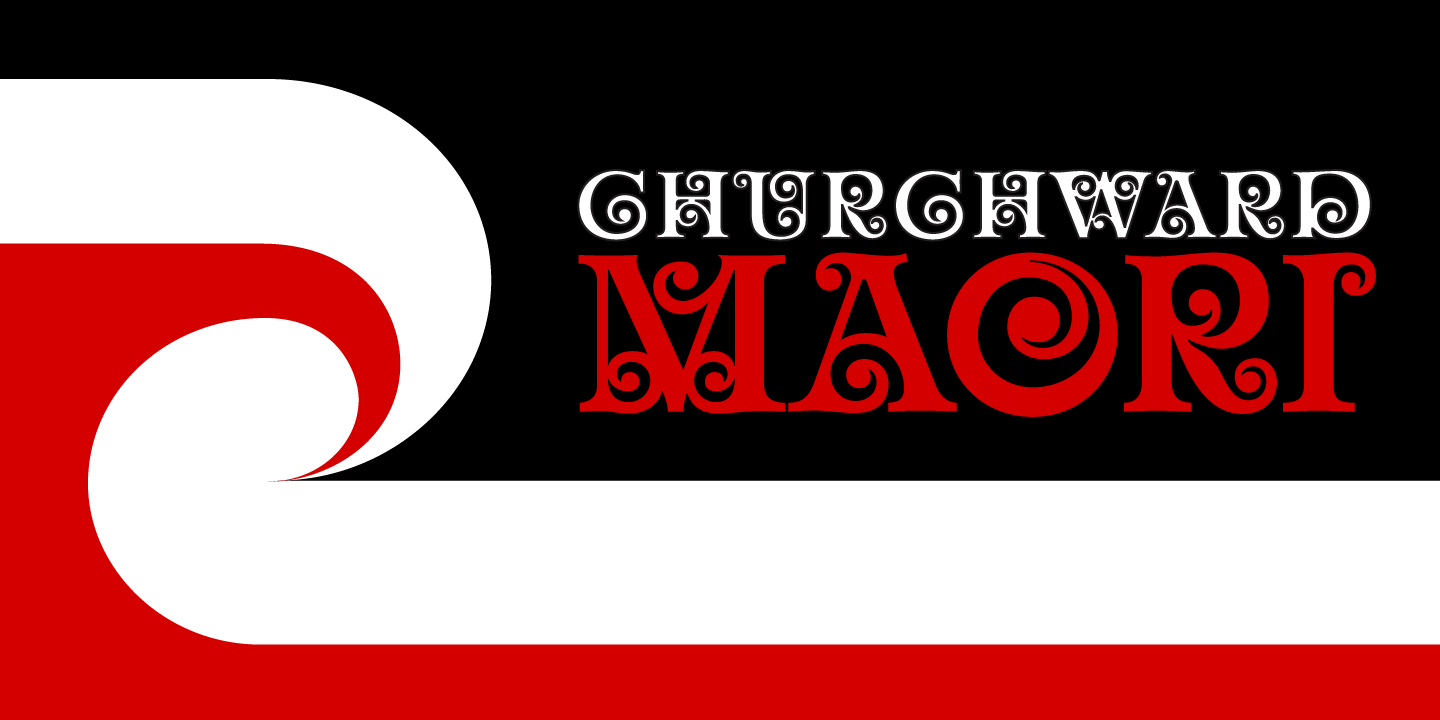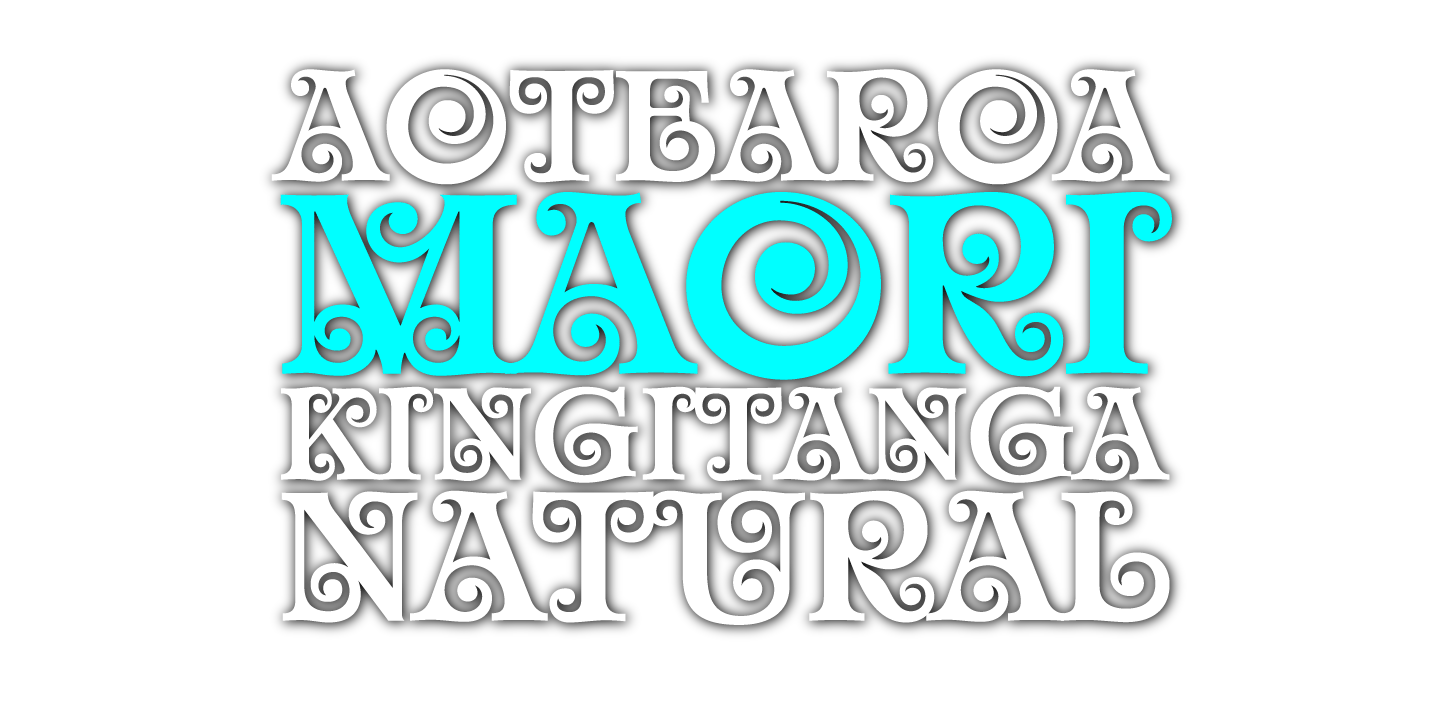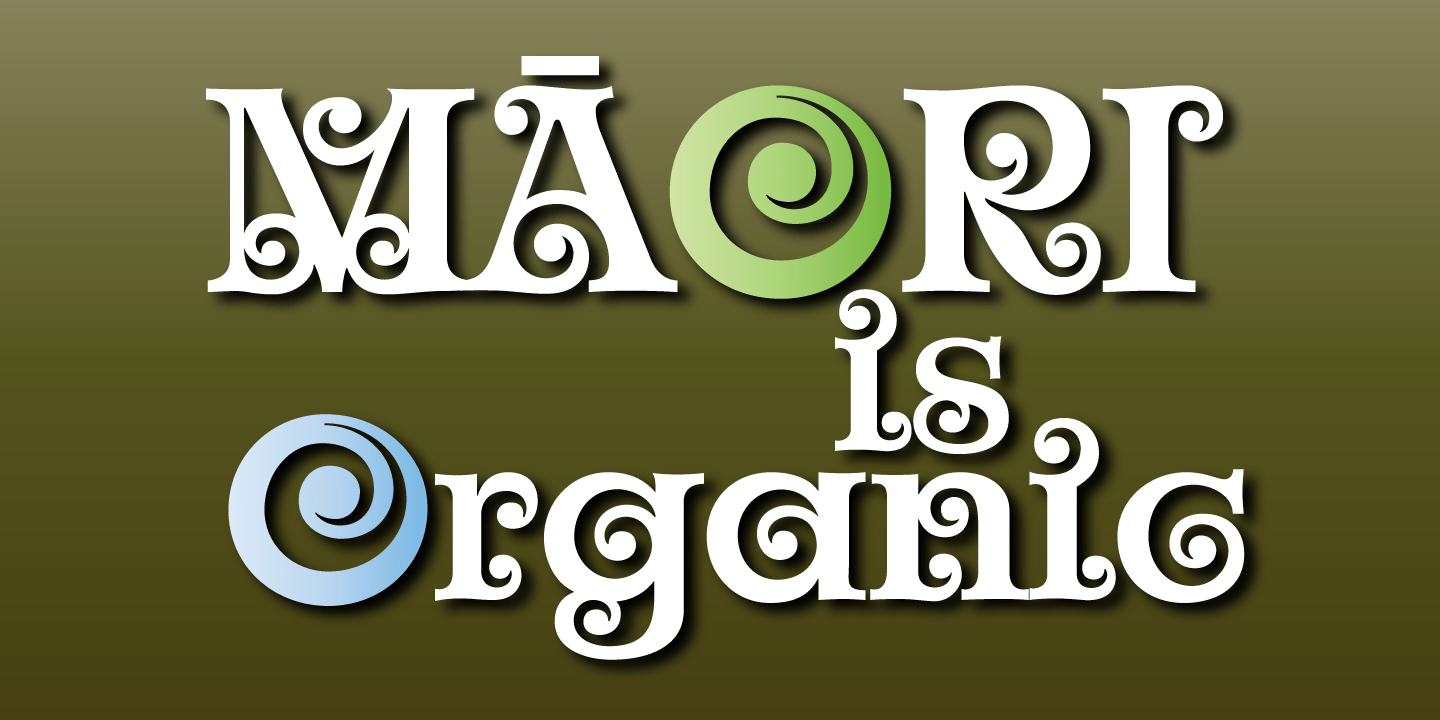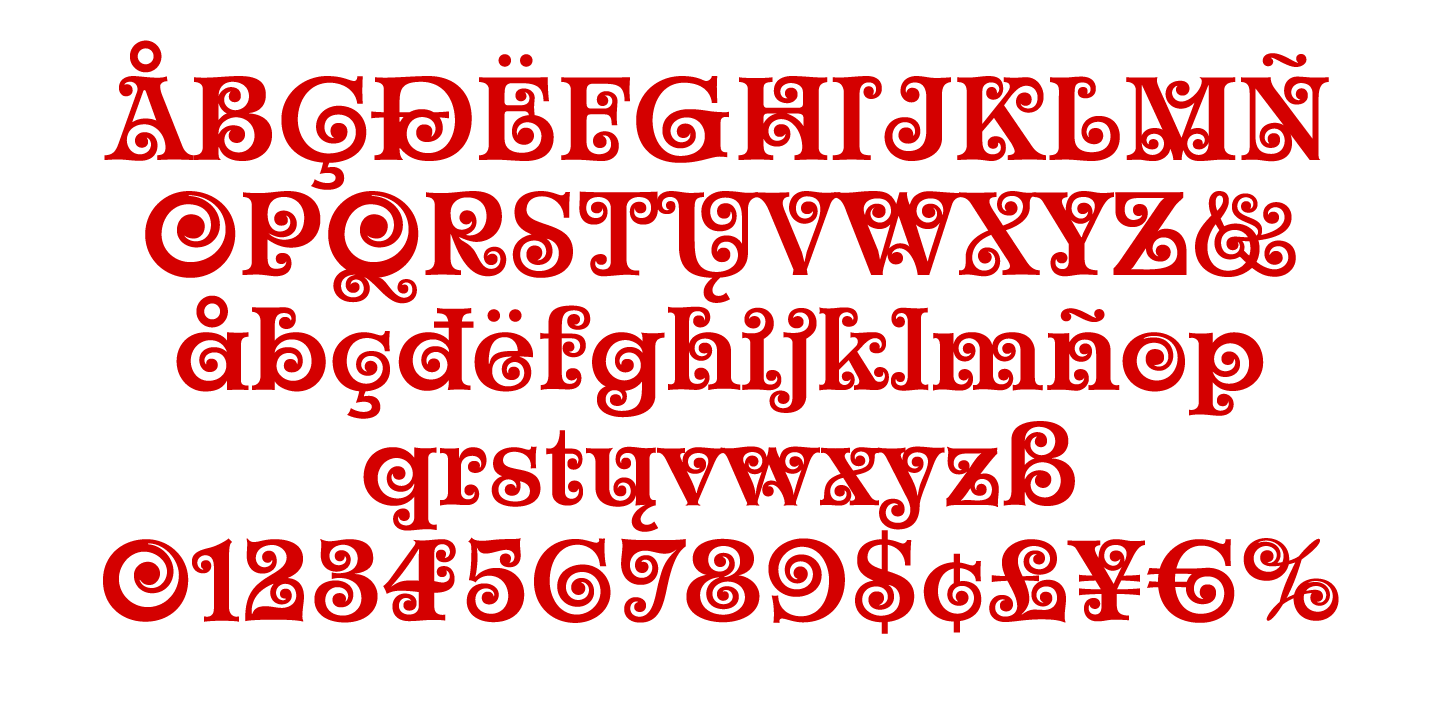
Churchward Maori
Font Family by BluHead Studio
Churchward Maori is the second of a series of eight Maori style typefaces designed by the late New Zealand type designer Joseph Churchward. It infuses standard Latin glyph forms with traditional Maori decorative elements to create a wildly organic design. We expanded the character set to support an expanded European character sets. We also released Churchward Ta Tiki.